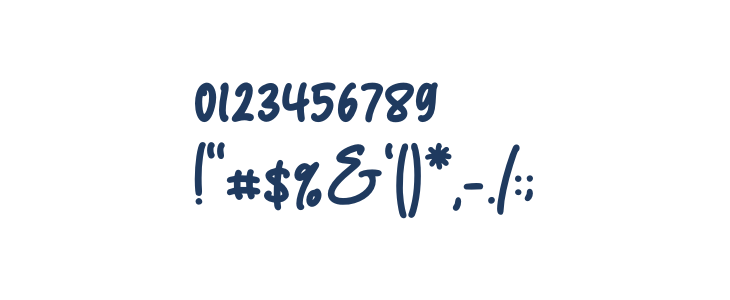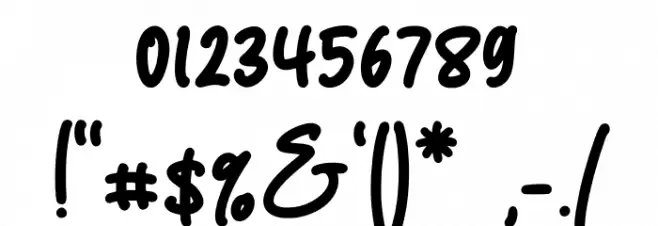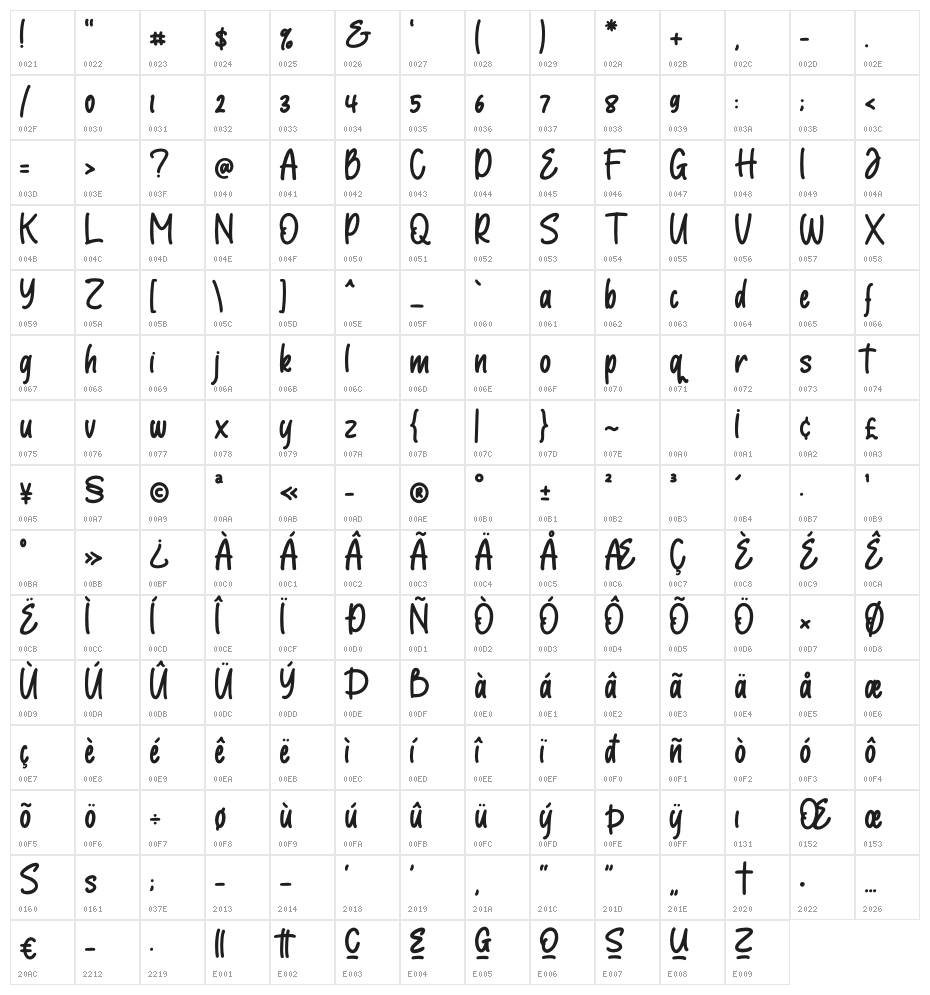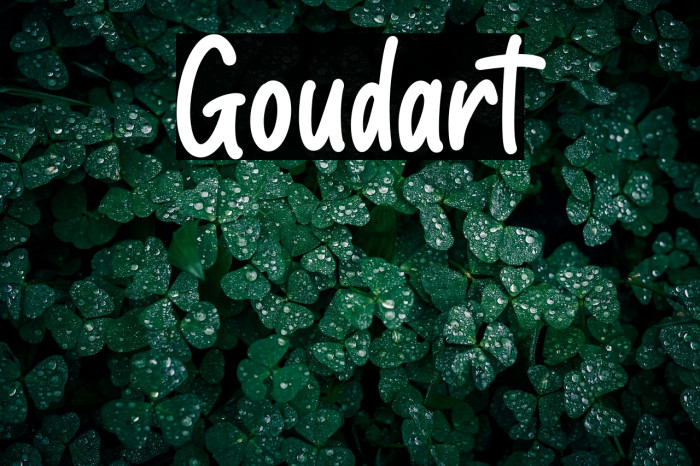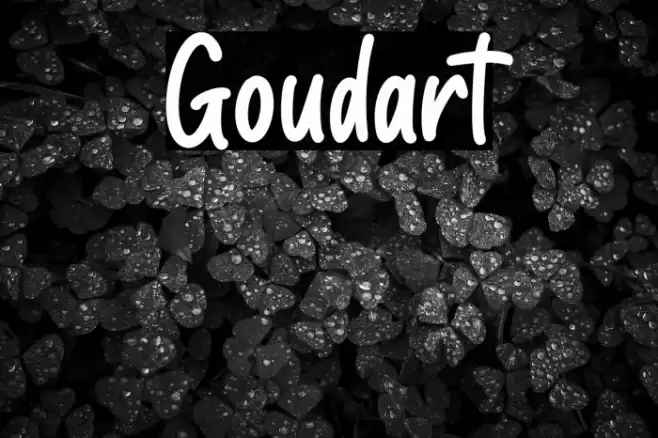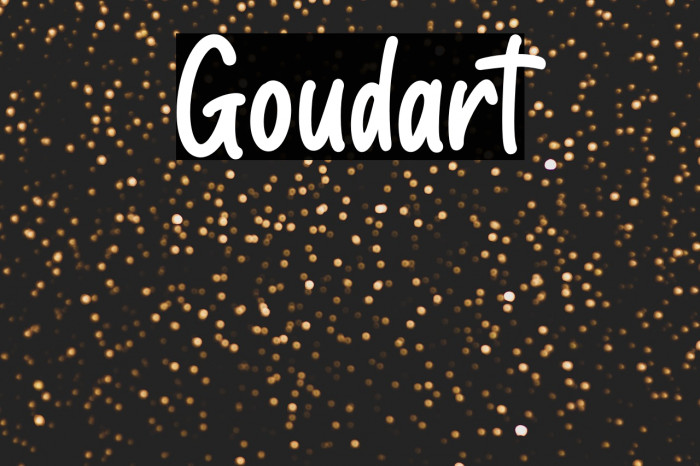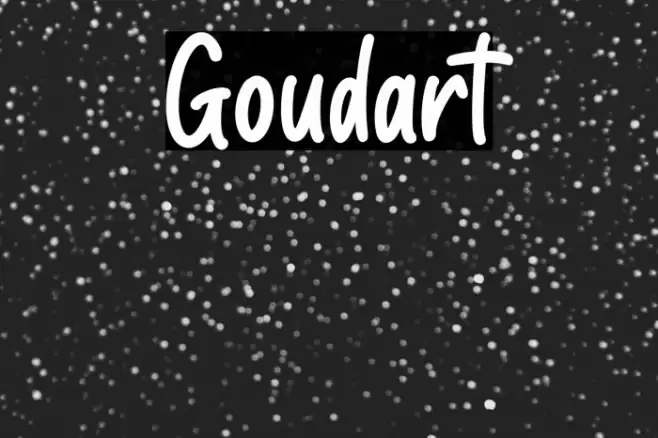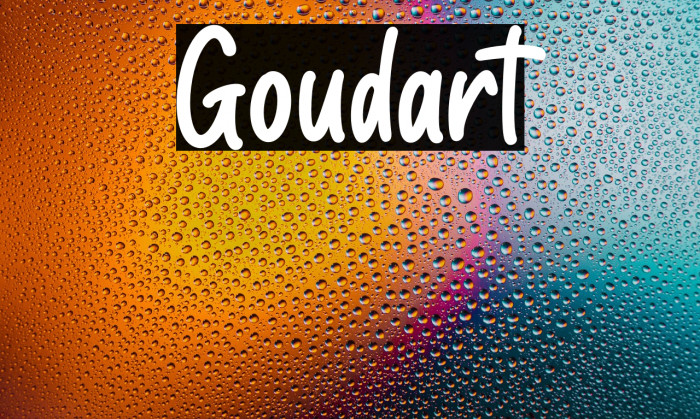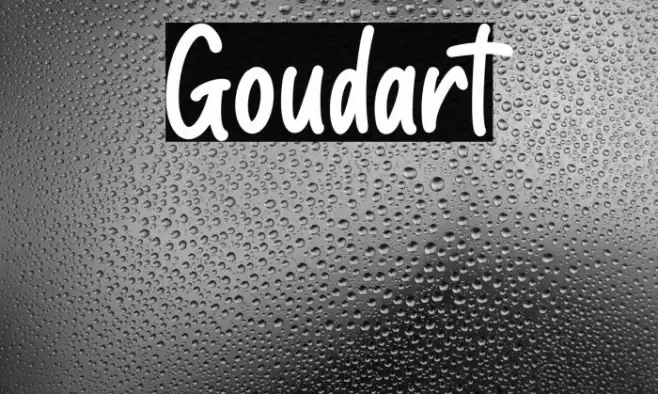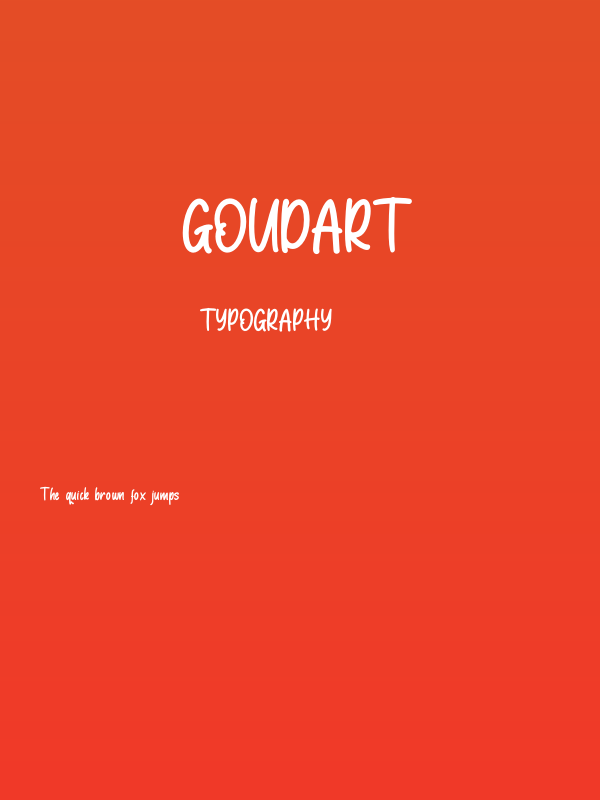
Goudart Font
Goudart Description
This font features a playful and casual handwritten style, characterized by its smooth, flowing curves and slightly irregular letterforms. The uppercase letters are bold and dynamic, with a consistent stroke width that gives them a lively appearance. The lowercase letters maintain the same energetic feel, with a slightly more condensed form that enhances readability. Numbers and special characters follow the same design principles, ensuring a cohesive look across all text elements. The overall style is informal and friendly, making it suitable for projects that require a personal touch.
| Use Case | Logos, Headlines, Social media graphics |
| Proposed Projects | Ideal for greeting cards, invitations, personal branding, and social media graphics. |